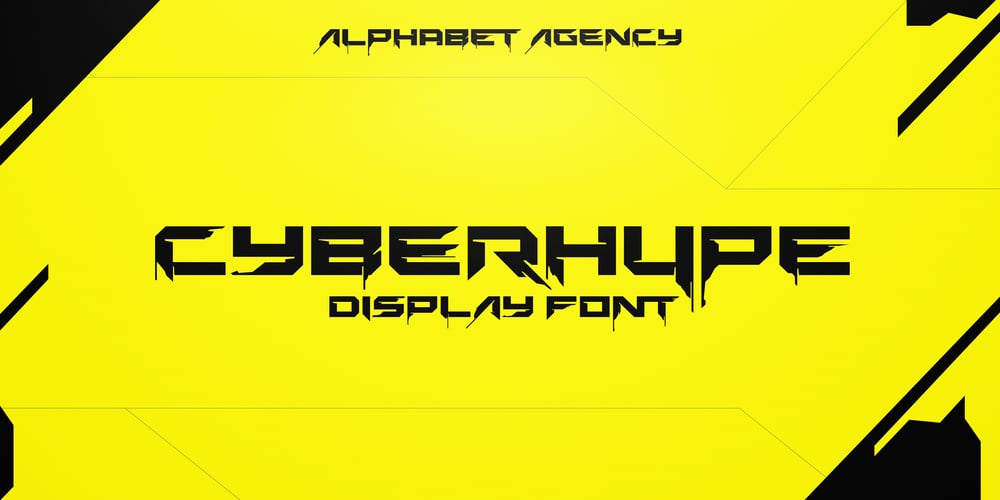
Cyberhype Font Family was designed by Swinn Jonathan and published by Alphabet Agency. Cyberhype contains 1 styles and family package options. Alphabet Agency proudly presents Cyberhype, a bold sans serif display font with a glitched look.Cyberhype works great when used in many music genres involving dance music, synth-pop, house music, dubstep, techno, electronic dance music. The font also is great for use in themes such as gaming, e sports, AI (artificial intelligence), hacking, technology, digital, cyber-security, cyber technology, robotics and cutting edge science. The font contains over 128 characters including all capital letters, numbers, punctuation and Latin international characters.